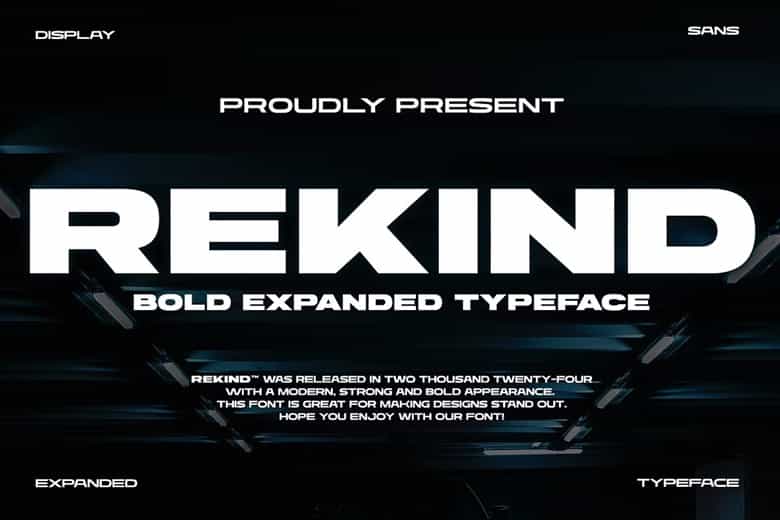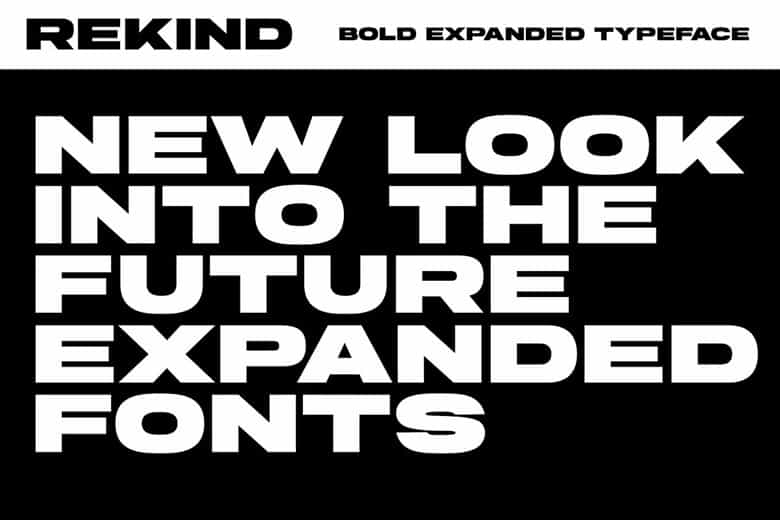
Rekind Expanded is a beautiful bold sans serif typeface with a contemporary design and it is strong and bold. Intended to be provocative and easily recognizable in a number of design applications. This font is also great for use in logo, branding, promotions, posters, book covers, magazine layouts, social media, headlines, titling, movie title, logo brand, logo company, layout website and any other design.